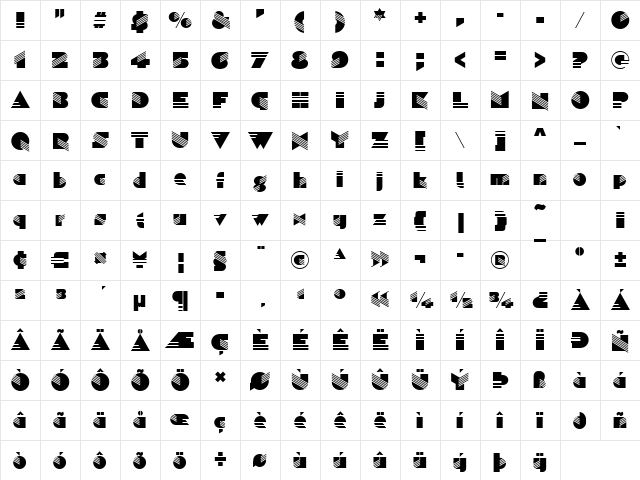
Complete Simaloa Becker Regular glyph index. Displaying only characters natively supported by Simaloa Becker Regular font.
Simaloa Becker is a composed and adaptable typeface that performs quietly and consistently across a wide range of design contexts.